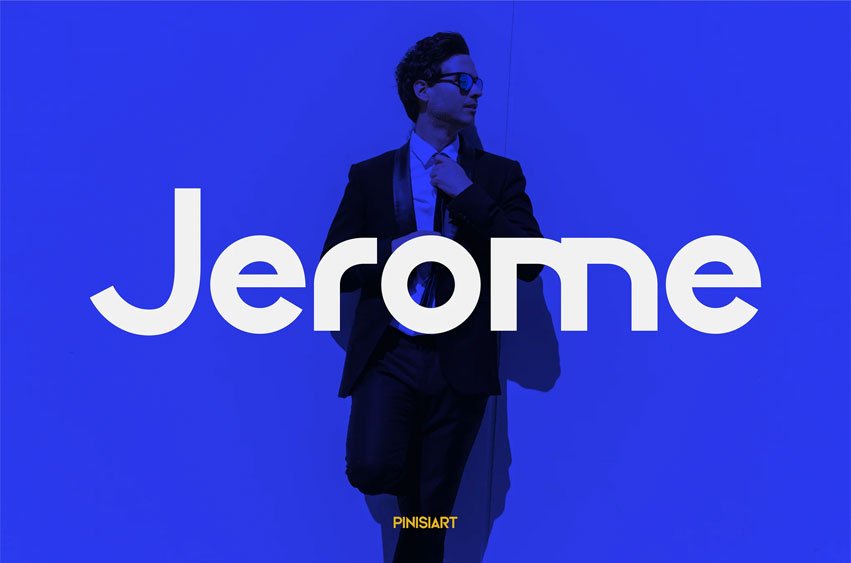
Jerome Font is a modern geometric typeface built for clarity, confidence, and visual harmony. With its rounded terminals, balanced proportions, and strong letter spacing, this font reflects a design language that values simplicity and impact. Its bold yet minimal character shapes make it ideal for brand systems, business presentations, and digital innovation platforms that need to express intelligence through simplicity.
Jerome embodies the elegance of structured geometry — every curve is refined for readability, every angle exudes purpose. It’s the font for modern companies that value trust, focus, and forward-thinking communication.
From tech startups to corporate agencies, Jerome amplifies your brand’s voice with sophistication and strength. Use it in branding, editorial design, corporate identity, business presentations, and digital campaigns to convey authority and professionalism. Its design rhythm ensures your headlines stand out while maintaining perfect legibility across print and screen.
If your goal is to communicate innovation and confidence, Jerome is the ideal visual partner for your brand story.
Key Features: Modern Design Language
- Clean geometric structure with smooth curves and smart proportions.
Professional Aesthetic
- Balances visual strength and clarity for presentations, reports, and websites.
Readable and Versatile
- Optimized for headlines, taglines, and body text in both digital and print layouts.
Brand-Ready
- Enhances logo design and identity systems with a confident, minimal tone.